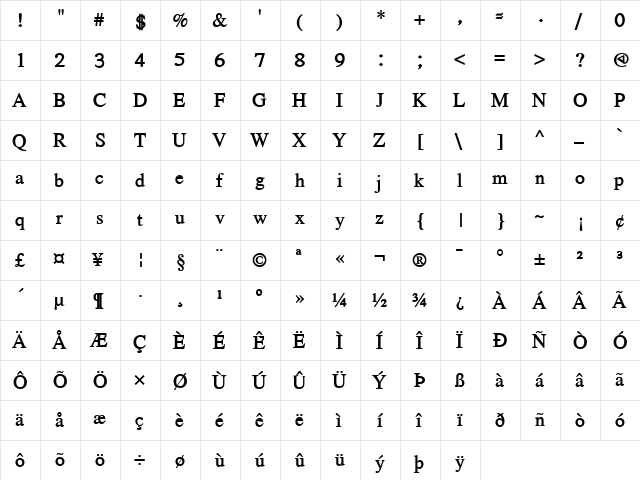
Masinahikan Bold
| Foundry | Chris Harvey (languagegeek.com) |
| Designer | Chris Harvey |
Design Context for Masinahikan Typeface
Masinahikan takes a measured approach to typography — its balanced proportions and neutral character make it a reliable workhorse for both digital and print work. The heavy weight commands attention and anchors typographic hierarchies.